The wrong font can make a birthday card look like a tax document. Seriously.
Finding the best happy birthday fonts takes more time than most people expect. You scroll through hundreds of options on Google Fonts or Dafont, and everything starts blending together.
Script fonts look too formal. Display fonts feel too loud. And that Comic Sans temptation? We’ve all been there.
This guide cuts through the noise. You’ll discover celebration typefaces that actually work, whether you’re designing party invitations in Canva, cutting vinyl lettering for banners, or just making a quick birthday card.
We’ll cover free downloads, premium options, and how to pair fonts without making a visual mess.
The Best Happy Birthday Fonts
| Font Name | Style Category | Best Use Context | Key Attributes |
|---|---|---|---|
| Happy Kiddy | Playful Display | Children’s parties (ages 3-8) | Rounded, bouncy letterforms |
| Hello Jerry | Casual Script | Informal greeting cards | Friendly, handwritten feel |
| Miggoe | Modern Quirky | Trendy social media posts | Irregular baseline, contemporary |
| Happy Day | Cheerful Display | General birthday celebrations | Upbeat, versatile spacing |
| Puzzle | Geometric Novelty | Game-themed parties | Interlocking shapes, unique structure |
| Hellowkids | Child-Friendly Sans | Educational materials, invitations | Clear legibility, approachable |
| Handy Craft | Handmade Aesthetic | DIY party decor | Crafted texture, personal touch |
| Honey Beezy | Sweet Script | Nature-themed celebrations | Flowing curves, organic movement |
| Allea Sweet | Elegant Script | Sophisticated birthday events | Refined flourishes, graceful |
| Kinder Boys | Bold Youthful | Boys’ parties (ages 5-10) | Strong strokes, energetic |
| Dragon Kids | Adventure Fantasy | Fantasy-themed celebrations | Dynamic angles, bold presence |
| Shiny Kids | Glossy Display | Festive banners, balloons | Reflective quality, celebratory |
| Barnie Kids | Cartoon-Inspired | Character-themed parties | Animated feel, playful proportions |
| Audrey Kids | Gentle Rounded | Girls’ parties, soft themes | Smooth curves, gentle aesthetic |
| Jangkids | Informal Sans | Casual family gatherings | Relaxed spacing, approachable |
| Amazing Kids | Uplifting Display | Milestone birthdays | Expressive letterforms, positive vibe |
| Funcy Kids | Whimsical Display | Playful party invitations | Irregular shapes, fun personality |
| Happy Unicorn | Magical Fantasy | Unicorn-themed parties | Whimsical details, dreamy quality |
| Birthday Wishlist Signature | Personal Script | Wish cards, personal notes | Authentic handwriting style |
| Glitter | Sparkle Effect | Glamorous celebrations | Textured appearance, festive shine |
| Equinox | Balanced Modern | Contemporary adult birthdays | Geometric harmony, refined |
| Anders | Minimalist Sans | Modern, understated events | Clean lines, sophisticated simplicity |
Happy Kiddy
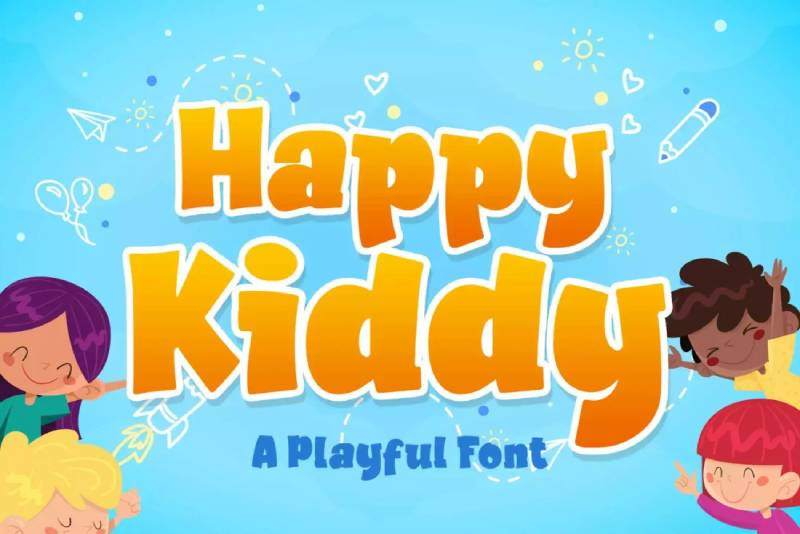
A playful sans-serif font that captures childhood energy with bold, wavy letterforms. Works beautifully for birthday invitations, party banners, and cake toppers.
Font Characteristics
- Style category: Sans-serif / Decorative
- Weight options: Bold only
- Character set: Full Latin A-Z uppercase and lowercase, numbers, punctuation, multilingual accents
Best Use Cases
- Birthday party invitations and banners
- Kids’ book covers and posters
- T-shirt designs and craft projects
- Best for children ages 1-10
- Casual, playful formality
Pairing Suggestions
- Body text: Pair with a clean sans-serif like Open Sans or Montserrat
- Design elements: Balloons, confetti, colorful geometric shapes
Visual Impact
- Readability: Best at medium to large sizes (headlines, titles)
- Color compatibility: Works with bright, vibrant color palettes and multi-color treatments
Hello Jerry
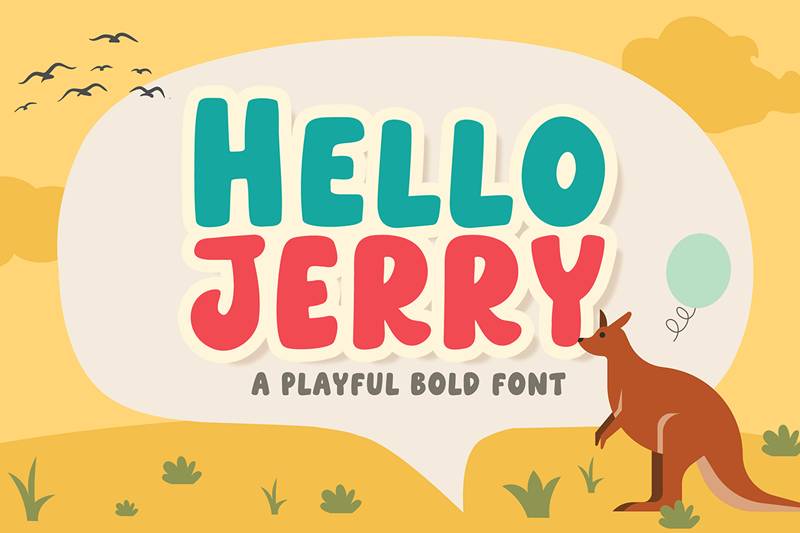
A bold display font with cheerful, all-caps styling. The thick letterforms grab attention instantly, making it a solid pick for birthday cards and party materials.
Font Characteristics
- Style category: Display / Cartoon
- Weight options: Bold (single weight)
- Character set: Uppercase, lowercase, numerals, punctuation (123 glyphs)
Best Use Cases
- Birthday invitations and greeting cards
- Logos and quote graphics
- Posters, packaging, book covers
- Suitable for all ages
- Casual to moderately playful formality
Pairing Suggestions
- Body text: Try Lato or Nunito for readable contrast
- Design elements: Confetti patterns, balloons, bold geometric accents
- Format: TTF (2 font files included)
- Download: DaFont, Font Bundles, CDN Fonts
Visual Impact
- Readability: Strong at large sizes; visual hierarchy works well for headlines
- Color compatibility: Pairs nicely with bright primary colors
Miggoe
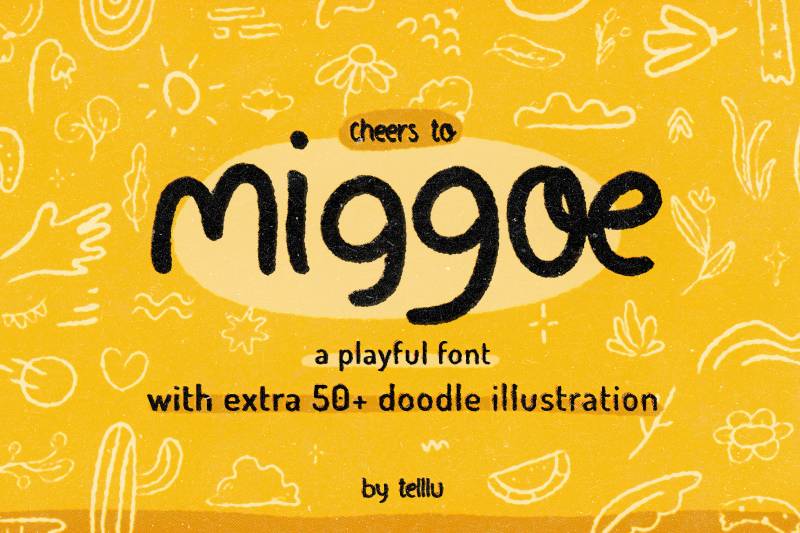
This cheerful handwritten-style font comes bundled with extra doodles. Perfect for educational materials and kids’ birthday designs. The included vector doodles (balloons, cakes, stars) make party graphics a breeze.
Font Characteristics
- Style category: Handwritten / Sans-serif hybrid
- Weight options: Regular only
- Character set: 216 glyphs, ligatures, multi-language support (English, French, Italian, Dutch, Spanish, Swedish, and more)
Best Use Cases
- Children’s birthday invitations
- Educational materials and school projects
- Greeting cards with doodle accents
- Ages 1-12 primarily
- Playful, informal formality
Pairing Suggestions
- Body text: Combine with simple sans-serifs like Roboto or Source Sans Pro
- Design elements: Use the included doodle set; florals and hand-drawn icons work great
Technical Details
- License: Premium (Envato Elements, Creative Market)
- Format: OTF, TTF plus bonus AI, EPS, SVG vector files
- Download: Envato Elements, Font Bundles, MasterBundles
Visual Impact
- Readability: Good at medium to large sizes
- Color compatibility: Bright pastels, rainbow schemes, and analogous colors look fantastic
Happy Day
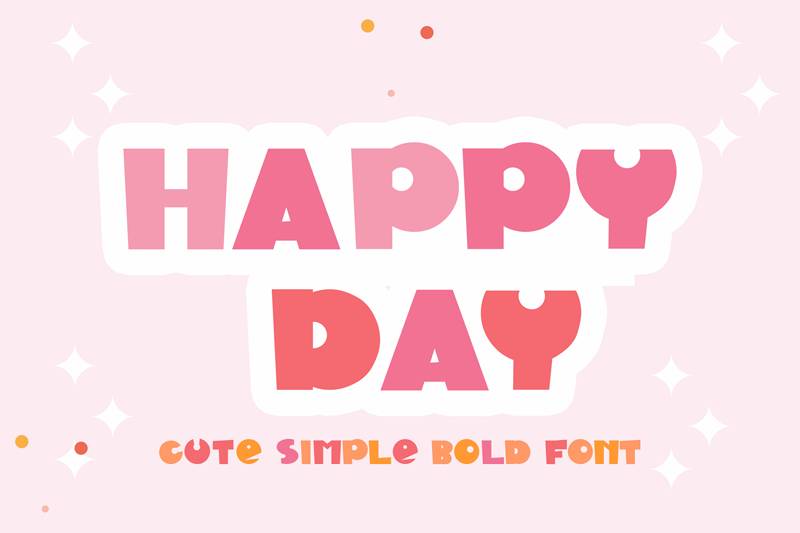
A paper cutout-style font that looks like someone actually cut each letter from colored paper. The uneven edges and playful irregularity give it an authentic handmade feel. Kids love it.
Font Characteristics
- Style category: Decorative / Display (cutout style)
- Weight options: Regular only
- Character set: Basic Latin A-Z uppercase and lowercase, numbers, punctuation
Best Use Cases
- Birthday signs and banners
- Children’s book designs
- YouTube thumbnails and social media covers
- Party invitations
- Ages 1-10; very casual formality
Pairing Suggestions
- Body text: Clean sans-serif fonts like Arial or Helvetica
- Design elements: Multi-colored backgrounds, paper texture overlays, craft-style graphics
Technical Details
- License: Premium (Envato Elements)
- Format: OTF, TTF, WOFF (web font included)
- Download: Envato Elements, Fontesk
Visual Impact
- Readability: Best at larger sizes where the cutout details show
- Color compatibility: Looks stunning with multi-color letter fills; try different hues per letter
Puzzle
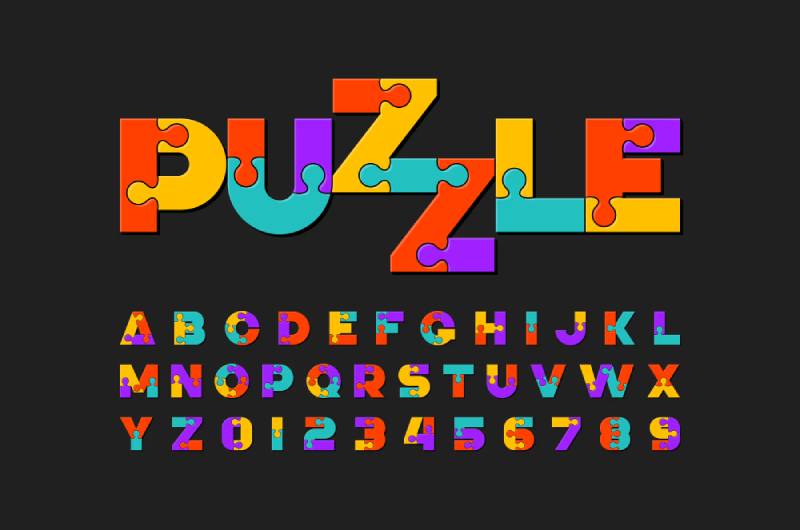
Bold jigsaw-inspired letterforms that literally look like puzzle pieces fit together. A fun choice for kid-friendly birthday parties and themed events. I actually used this for my nephew’s 5th birthday invites last year.
Font Characteristics
- Style category: Decorative / Display
- Weight options: Bold only
- Character set: Basic Latin A-Z, numbers, punctuation
Best Use Cases
- Kids’ birthday party invitations
- Game-themed events
- Children’s posters and banners
- Age group: 3-10 years
- Casual, fun formality
Pairing Suggestions
- Body text: Simple rounded fonts like Quicksand or Varela Round
- Design elements: Colorful puzzle pieces, game board motifs, playful icons
Technical Details
- License: Premium (Envato Elements)
- Format: OTF, TTF, WOFF
- Download: Envato Elements
Visual Impact
- Readability: Medium to large sizes only; details get lost small
- Color compatibility: Primary colors, rainbow schemes
Hellowkids
An adorable children’s typeface with rounded, comic-style letters. Comes with a bonus exclusive alphabet for extra design variety. The playful curves make every birthday message feel like a celebration.
Font Characteristics
- Style category: Sans-serif / Comic display
- Weight options: Bold
- Character set: Basic Latin A-Z, numbers, punctuation, bonus alphabet (English only)
Best Use Cases
- Birthday cards and invitations for kids
- Comic-style party materials
- Game interfaces and children’s content
- Ages 3-12
- Playful, informal formality
Pairing Suggestions
- Body text: Pair with Nunito or Poppins for clean readability
- Design elements: Planets, stars, cartoon characters, bold shapes
Technical Details
- License: Premium (Envato Elements)
- Format: OTF, WOFF
- Download: Envato Elements
Visual Impact
- Readability: Excellent at display sizes
- Color compatibility: Bright, saturated colors; works well with gradient fills
Handy Craft
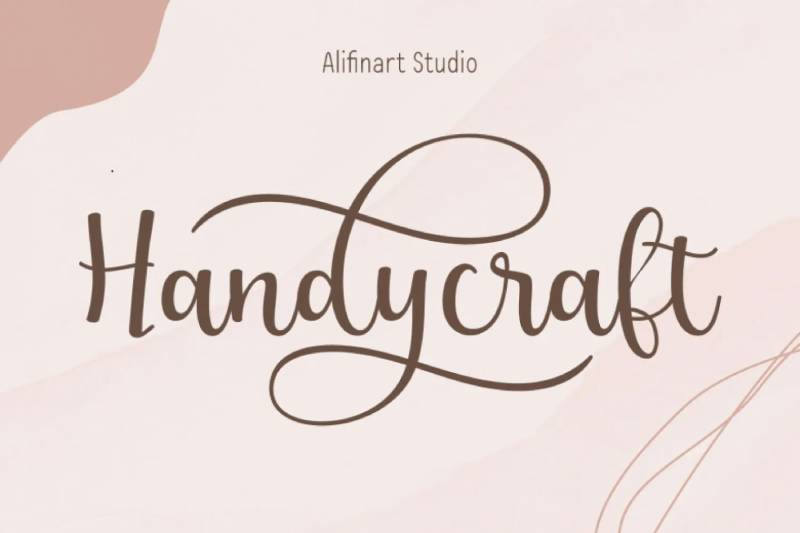
Chunky, handwritten letters with a cartoon aesthetic. The bold strokes demand attention, which makes it ideal for birthday party banners and large signage. Mix uppercase and lowercase for interesting compositions.
Font Characteristics
- Style category: Handwritten / Display
- Weight options: Bold only
- Character set: Uppercase and lowercase Latin, numbers, punctuation
Best Use Cases
- Birthday party invitations and banners
- Cartoon and animal-themed designs
- Food packaging and adventure graphics
- All ages (especially kids)
- Casual, whimsical formality
Pairing Suggestions
- Body text: Try Lora or Merriweather for contrast
- Design elements: Hand-drawn illustrations, animals, food icons
Technical Details
- License: Premium (Envato Elements)
- Format: OTF
- Download: Envato Elements, Design Shack
Visual Impact
- Readability: Great at large sizes for titles and headers
- Color compatibility: Bold, saturated colors; primary color schemes work particularly well
Honey Beezy
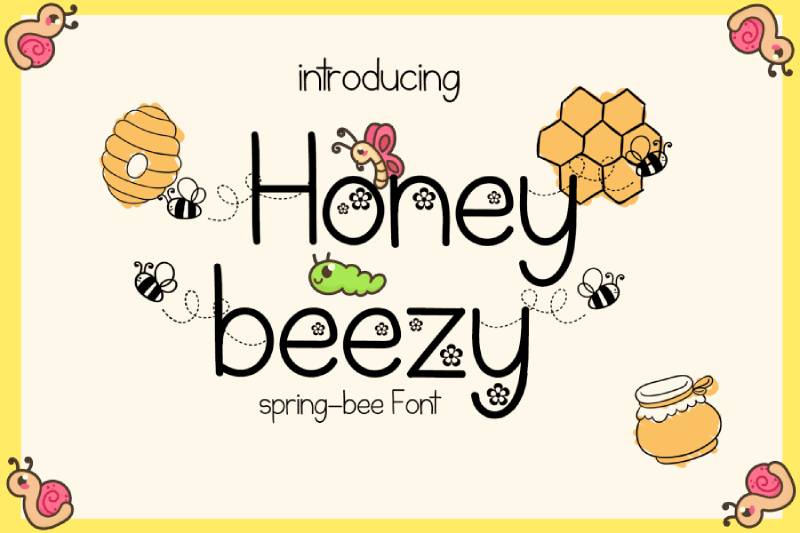
A sweet, monoline script font with a spring and bee theme. The thin, clean lines feel delicate yet readable. Some alternated glyphs add variety to your designs. Perfect for spring birthdays or nature-themed parties.
Font Characteristics
- Style category: Script / Handwritten
- Weight options: Regular (thin monoline)
- Character set: Full Latin alphabet, numbers, punctuation, alternate glyphs
Best Use Cases
- Spring-themed birthday parties
- Garden party invitations
- Children’s greeting cards and scrapbooks
- Social media posts and flyers
- Ages 1-8; sweet, cheerful formality
Pairing Suggestions
- Body text: Light sans-serifs like Raleway or Work Sans
- Design elements: Bees, flowers, honeycomb patterns, nature illustrations
Technical Details
- License: Free for personal use (DM Studio); commercial license available
- Format: OTF, TTF
- Download: 1001 Fonts, FontGet, Envato Elements
Visual Impact
- Readability: Works at medium sizes; thin strokes may struggle at very small sizes
- Color compatibility: Soft yellows, pastels, spring color palettes
Allea Sweet
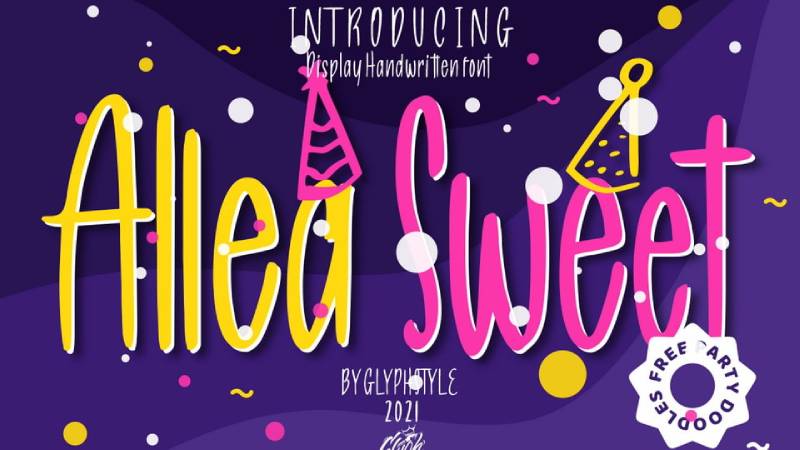
This handwritten display font brings cheerful energy to birthday cards and party invitations. Created by Glyphstyle, it looks like someone actually wrote it with a marker. Comes with bonus doodle party elements too.
Font Characteristics
- Style category: Handwritten script
- Weight options: Regular only
- Character set: Latin extended with 66+ glyphs, PUA encoded special characters
Best Use Cases
- Birthday cards, cake toppers, party banners
- Works great for children’s celebrations (ages 1-12)
- Casual and playful formality level
Pairing Suggestions
- Body text fonts: Clean sans-serifs like Open Sans or Montserrat
- Design elements: Pairs well with balloons, confetti graphics, hand-drawn doodles
Technical Details
- License type: Free for personal use; commercial license available from Glyphstyle
- Format compatibility: TTF, OTF (web and print)
- Download source: DaFont, Creative Fabrica, Fontesk
Visual Impact
- Readability: Best at medium to large sizes; headlines and titles work perfectly
- Color compatibility: Vibrant pastels or bold primary colors
Kinder Boys
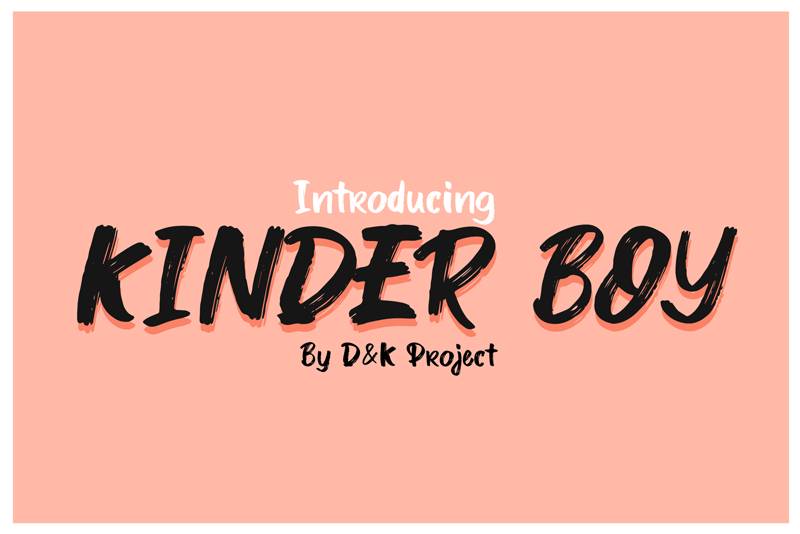
StringLabs created this one specifically for children’s designs. Thick, bold letterforms with a cartoon vibe. The dramatic weight makes headlines pop without trying too hard.
Font Characteristics
- Style category: Decorative display
- Weight options: Bold (single weight)
- Character set: Latin with multilingual support, uppercase and lowercase
Best Use Cases
- Birthday party invitations, kindergarten events, comic-style designs
- Perfect for kids aged 3-10
- Playful and informal tone
Pairing Suggestions
- Body text fonts: Simple rounded sans-serifs
- Design elements: Cartoon illustrations, speech bubbles, playful shapes
Technical Details
- License type: Free for personal use; commercial license required for business projects
- Format compatibility: TTF, OTF, WOFF (web and print)
- Download source: StringLabs Creative, Creative Fabrica, Envato Elements
Visual Impact
- Readability: Strong at larger sizes; not ideal for body text
- Color compatibility: Bold primaries, neon shades
Dragon Kids
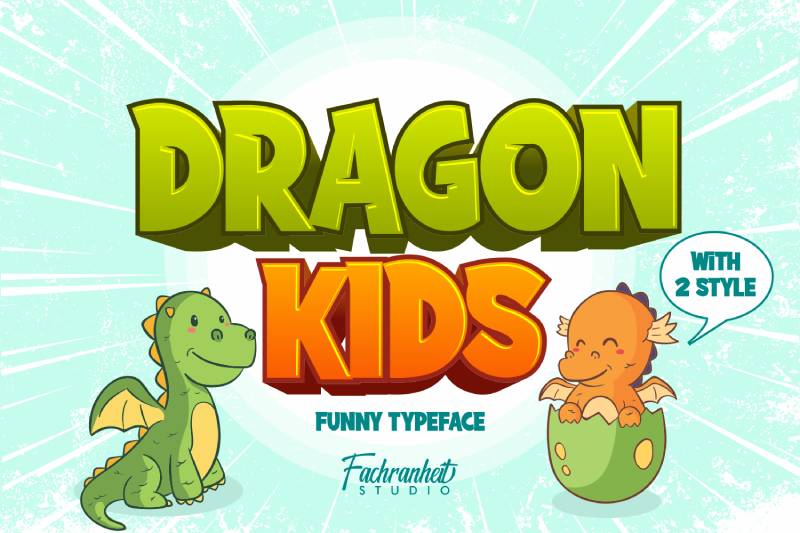
Bold and chunky. Fachranheit designed this typeface with undecorated lines and ribbon-like terminals. Took me a while to appreciate how versatile this actually is.
78 alternate characters give you options. The letter shapes feel handcrafted without looking sloppy.
Font Characteristics
- Style category: Bold display
- Weight options: Regular (bold appearance)
- Character set: Full Latin extended, 78 alternates, 12 swashes, PUA encoded
Best Use Cases
- Children’s book titles, party banners, t-shirt designs
- Best for ages 2-12
- Casual but polished look
Pairing Suggestions
- Body text fonts: Light to regular weight geometric sans-serifs
- Design elements: Dragons (obviously), fantasy themes, adventure graphics
Technical Details
- License type: Free demo for personal use; full commercial license from Fachranheit
- Format compatibility: TTF, OTF, WOFF, WOFF2 (web and print)
- Download source: DaFont, Creative Fabrica, Font Bundles
Visual Impact
- Readability: Excellent at display sizes; maintains clarity even on busy backgrounds
- Color compatibility: Works with most color schemes
Shiny Kids
Another StringLabs creation. Round edges with quirky exclamation-mark decorations on the letter legs. That detail alone makes it stand out from similar kids’ fonts.
The whimsical curves give your birthday materials instant personality.
Font Characteristics
- Style category: Decorative display
- Weight options: Regular
- Character set: 177 characters, Latin extended, multilingual support
Best Use Cases
- Birthday invitations, party decorations, children’s media
- Ages 2-10
- Cheerful and festive formality
Pairing Suggestions
- Body text fonts: Neutral sans-serifs with good x-height
- Design elements: Stars, sparkles, party hats, celebration icons
Technical Details
- License type: Free personal use; commercial license through StringLabs
- Format compatibility: TTF, OTF (both platforms)
- Download source: 1001 Fonts, StringLabs Creative, Creative Fabrica
Visual Impact
- Readability: Medium to large sizes only
- Color compatibility: Bright, happy colors; pastels work well too
Barnie Kids
StringLabs designed this with birthday invitations specifically in mind. The lovely letter shapes have that approachable quality kids respond to.
Not overly decorated. Just friendly and readable.
Font Characteristics
- Style category: Display
- Weight options: Regular (bold appearance)
- Character set: Standard Latin, numbers, punctuation
Best Use Cases
- Birthday party invitations, celebration cards, school projects
- Great for ages 3-12
- Warm and inviting tone
Pairing Suggestions
- Body text fonts: Clean, rounded sans-serif fonts
- Design elements: Friendly characters, soft shapes, balloons
Technical Details
- License type: Free for personal use; commercial license available
- Format compatibility: TTF, OTF (web and print ready)
- Download source: DaFont, StringLabs Creative
Visual Impact
- Readability: Clear at headline sizes
- Color compatibility: Warm tones, soft palettes, bright accents
Audrey Kids
Fun and lively. StringLabs captured childhood energy with bold, rounded letters and a carefree style. The balanced thickness keeps things readable while the rounded edges soften the overall feel.
One-of-a-kind alternates give you flexibility.
Font Characteristics
- Style category: Playful display
- Weight options: Regular
- Character set: 168 characters, multilingual support
Best Use Cases
- Children’s books, birthday celebrations, classroom projects
- Suits ages 2-12
- Playful but legible formality
Pairing Suggestions
- Body text fonts: Simple geometric sans-serifs with good tracking
- Design elements: Books, stars, educational graphics, party supplies
Technical Details
- License type: Free for personal; commercial license from StringLabs or MyFonts
- Format compatibility: TTF, OTF, WOFF, WOFF2 (all platforms)
- Download source: 1001 Fonts, Creative Fabrica, Envato Elements
Visual Impact
- Readability: Performs well at various display sizes
- Color compatibility: Versatile across color schemes
Jangkids
Bouncy letters with slightly uneven lines. StringLabs went for carefree fun here, and it works. The visible, round counters make letters instantly recognizable.
That youthful energy comes through without sacrificing readability.
Font Characteristics
- Style category: Quirky display
- Weight options: Regular
- Character set: Extended Latin, full punctuation, numbers
Best Use Cases
- Birthday materials, party graphics, children’s branding
- Ages 3-12
- Joyful and lighthearted formality
Pairing Suggestions
- Body text fonts: Clean, modern sans-serifs
- Design elements: Confetti, circus themes, playful illustrations
Technical Details
- License type: Free for personal use; commercial license required
- Format compatibility: TTF, OTF, WOFF (web and print)
- Download source: Creative Fabrica, So Fontsy, Font Bundles
Visual Impact
- Readability: Best at medium to large sizes
- Color compatibility: Bold, cheerful colors work best
Amazing Kids
Comical letter shapes with narrow counters and steady boldness. StringLabs created something that grabs attention without being obnoxious. Two styles available (regular and outline) give you options.
The whimsical appearance stays professional enough for branded materials.
Font Characteristics
- Style category: Decorative display
- Weight options: Regular and Outline
- Character set: Full Latin, multilingual support
Best Use Cases
- School advertisements, birthday designs, children’s party branding
- Perfect for ages 2-12
- Fun yet versatile formality
Pairing Suggestions
- Body text fonts: Subtle, readable sans-serifs
- Design elements: Cartoon characters, celebration graphics, educational themes
Technical Details
- License type: Free personal use; commercial from StringLabs Creative
- Format compatibility: TTF, OTF, WOFF, WOFF2 (both web and print)
- Download source: StringLabs Creative, Creative Fabrica, Envato Elements
Visual Impact
- Readability: Excellent for headlines and titles
- Color compatibility: Works across vibrant and muted palettes
Funcy Kids
A cute and quirky display font that brings instant joy to children’s birthday projects. Created by Stringlabs Creative Studio, this playful typeface works beautifully for party invitations and celebration designs.
Font Characteristics
- Style category: Decorative display
- Weight options: Regular only
- Character set: Latin with standard punctuation
The letterforms feel bouncy and energetic. Each character has rounded edges that soften the overall look.
Best Use Cases
Works perfectly for:
- Kids’ birthday party invitations
- Celebration banners and posters
- Cake topper designs
- Party favor labels
Best suited for children ages 2 to 10. The formality level sits firmly in the playful, casual zone.
Pairing Suggestions
Body text companions:
- Open Sans for readable paragraphs
- Lato for a clean secondary option
Design elements: Pairs well with balloons, confetti patterns, and cartoon illustrations. Avoid pairing with formal geometric shapes.
Technical Details
| Aspect | Details |
|---|---|
| License type | Premium (personal demo available) |
| Format | OTF, TTF |
| Source | MyFonts, Envato Elements |
Visual Impact
Readable at medium to large sizes. Not ideal for small text applications.
Works best with bright, saturated colors. Think primary hues and pastels. Avoid using on busy backgrounds where the playful details might get lost.
Happy Unicorn
A fun modern display font with two style variations. Perfect for greeting cards, birthday poster designs, and branding projects that need a touch of magic.
Font Characteristics
- Style category: Decorative display
- Weight options: Regular and Bold
- Character set: Full Latin alphabet with numerals
The design feels contemporary yet whimsical. Something about it just screams celebration without being over the top.
Best Use Cases
Ideal for:
- Birthday card headlines
- Party invitation titles
- Social media birthday posts
- Product packaging for kids’ items
Suits all ages when used creatively. I’ve seen it work for everything from toddler parties to sweet sixteen celebrations. Formality level: casual to semi-formal.
Pairing Suggestions
Body text options:
- Montserrat for modern balance
- Source Sans Pro for web projects
Design elements: Unicorns (obviously), rainbows, stars, and florals. The font psychology here leans playful and dreamy.
Technical Details
| Aspect | Details |
|---|---|
| License type | Premium with commercial options |
| Format | OTF, TTF |
| Source | Creative Fabrica, Font Bundles |
Visual Impact
Strong readability at display sizes. The bold weight really pops on birthday banners.
Color-wise, this font loves pinks, purples, and soft pastels. Works with gradient backgrounds too.
Birthday Wishlist Signature
A modern script font with simple elegance. The signature style adds a personal touch to birthday invitations and greeting cards without looking overly formal.
Font Characteristics
- Style category: Script/Signature
- Weight options: Regular
- Character set: Full Latin with OpenType features including stylistic sets 01-03, ligatures, and PUA encoding
The letters flow naturally. Not too swoopy, not too rigid. Took me a while to find something that hit this balance.
Best Use Cases
Perfect applications include:
- Elegant birthday invitations
- Quote designs and wall art
- Logo and branding for event planners
- Business cards and stationery
Best for teen and adult celebrations. The formality level ranges from casual elegance to semi-formal.
Pairing Suggestions
Complementary body fonts:
- Playfair Display for elegant pairings
- Raleway for contemporary contrast
Design elements: Works beautifully with minimalist florals, watercolor textures, and gold foil accents. Avoid heavy decorative elements that compete with the script’s natural flow.
Technical Details
| Aspect | Details |
|---|---|
| License type | Free personal / Premium commercial |
| Format | OTF, TTF |
| Source | Envato Elements, Font Bundles, DaFont |
Software compatibility includes Adobe Illustrator, InDesign, CorelDraw X6+, and Silhouette (via PUA encoding).
Visual Impact
Best at medium to large sizes. Small text loses the signature character.
The font works with virtually any color palette. Gold and black combinations look particularly striking. Soft backgrounds with good contrast really let this one shine.
Glitter
A modern calligraphy script font by Debut Studio. Four style variations (Regular, Shiny, Shadow, Rough) make this incredibly versatile for celebration designs.
Font Characteristics
- Style category: Script/Calligraphy
- Weight options: Regular with layered variations
- Character set: Full Latin, numerals, OpenType features, ligatures
Here’s what makes this one special. Three of the four files work as layers, letting you create shiny and shadow effects without additional software. That’s a time-saver.
Best Use Cases
Strong choices:
- Birthday greeting cards
- Wedding and celebration invitations
- New Year and graduation designs
- Social media celebration posts
Works across all age groups depending on style variation chosen. Formality spans from festive casual to elegant formal.
Pairing Suggestions
Body text partners:
- Lora for elegant serif pairing
- Nunito for friendly sans-serif balance
Design elements: Sparkles, confetti, and metallic textures complement this font naturally. The layered capability means you can create impressive typography effects with minimal effort.
Technical Details
| Aspect | Details |
|---|---|
| License type | Free demo / Premium full version |
| Format | OTF, TTF |
| Source | Creative Market, Font Bundles, Befonts |
The layered file system is this font’s hidden feature. Most designers miss it.
Visual Impact
Excellent readability at headline sizes. The shiny variation really catches the eye in print design applications.
Gold, silver, and rose gold color treatments work beautifully. Actually, any metallic or sparkle effect pairs well with the font’s inherent personality.
Equinox
A modern, minimal display typeface by Tugcu Design Co. Clean lines and geometric letterforms make this surprisingly versatile for both sci-fi themes and contemporary birthday designs.
Font Characteristics
- Style category: Sans-serif display
- Weight options: Regular and Bold
- Character set: Uppercase multilingual letters, numerals, punctuation, alternate characters
Toggle caps lock for alternate letterforms. That’s a nice touch for creating variety within a single design.
Best Use Cases
Strong applications:
- Space or sci-fi themed birthday parties
- Modern milestone birthday invitations (30th, 40th, 50th)
- Birthday YouTube video thumbnails
- Contemporary greeting card headlines
Best for pre-teen to adult celebrations. Formality level: modern casual to sleek formal.
Pairing Suggestions
Body text companions:
- Roboto for web-friendly combinations
- Inter for clean, modern hierarchy
Design elements: Geometric shapes, cosmic imagery, and clean layouts. The minimalist design aesthetic suits brands wanting sophisticated celebration materials.
Technical Details
| Aspect | Details |
|---|---|
| License type | Free personal / Premium commercial |
| Format | OTF, TTF, WOFF |
| Source | Envato Elements, DaFont, Befonts |
Visual Impact
Excellent readability at any size. The geometric structure maintains clarity even in small applications.
Works with virtually any color scheme. The clean lines mean you can go bold or subtle. Dark themes with bright accent colors look particularly sharp. Good visual hierarchy comes naturally with this one.
Anders
An experimental geometric sans-serif font by Tom Anders Watkins. Minimal and unique, this font brings a distinctive edge to contemporary birthday projects.
Font Characteristics
- Style category: Geometric sans-serif
- Weight options: Regular only
- Character set: Uppercase only (all caps)
The designer created this as a thank-you to the design community. Using influences from modern font design, the result feels both familiar and fresh.
Best Use Cases
Works well for:
- Modern birthday stationery
- Greeting card headlines
- Birthday social media graphics
- Event branding and signage
Best suited for teen through adult celebrations. Formality: modern casual to sophisticated.
Pairing Suggestions
Body text options:
- Work Sans for friendly contrast
- PT Sans for balanced layouts
Design elements: Geometric patterns, clean photography, and white space heavy layouts. Pairing fonts with Anders requires something warm to offset its angular personality.
Technical Details
| Aspect | Details |
|---|---|
| License type | Free for personal and commercial use |
| Format | OTF, TTF |
| Source | Behance, Fontesk, Creative Fabrica |
This is one of those rare truly free fonts. The designer explicitly allows commercial use.
Visual Impact
Strong readability at display sizes. The uppercase-only design creates instant impact.
Works with any color combination. The angular letterforms actually pop more with bold color choices. Consider high-contrast pairings for maximum effect. Typography elements like tracking can be loosened slightly for airier layouts.
FAQ on The Best Happy Birthday Fonts
What makes a good birthday font?
A good birthday font balances readability with personality. Look for playful typography that fits your celebration theme. Script fonts work for elegant parties. Bold display fonts suit kids’ events. The vibe matters more than trends.
Are free birthday fonts safe to download?
Most free fonts from trusted sites like Google Fonts, Font Squirrel, and Dafont are safe. Always check the font licensing terms before commercial use. Some “free” fonts only cover personal projects.
Which fonts work best for birthday invitations?
Dancing Script and Pacifico are popular picks. Great Vibes adds elegance. For kids’ parties, try bubble letter fonts or playful display fonts. Your invitation style should match the party atmosphere.
Can I use birthday fonts in Cricut Design Space?
Yes. Download fonts in OTF or TTF format, then install them on your computer. Cricut Design Space automatically detects installed fonts. Works great for vinyl banners and cake toppers.
What’s the difference between script and display birthday fonts?
Script fonts mimic handwriting with flowing, connected letters. Display fonts are decorative and attention-grabbing. Scripts feel personal and elegant. Display fonts feel bold and festive. Many designers combine both.
How do I pair birthday fonts without clashing?
Stick to two fonts maximum. Pair a decorative headline font with a simple body typeface. Contrast matters. Learn more about pairing fonts effectively. Avoid combining two busy fonts together.
Which birthday fonts work for adults versus kids?
Adults prefer elegant scripts like Great Vibes or clean sans-serif fonts. Kids’ parties call for whimsical lettering, balloon fonts, or colorful bubble letters. Age shapes everything here.
What font size should I use for birthday banners?
Depends on viewing distance. For party banners, start at 150pt minimum. Test printouts first. Consider the font spacing between letters. Tight spacing gets hard to read from across the room.
Are variable fonts good for birthday designs?
Variable fonts offer flexibility. One file contains multiple weights and styles. Great if you need consistency across birthday cards, invitations, and banners. Not all design tools support them yet though.
Where can I find premium birthday fonts?
Creative Market, MyFonts, and Envato Elements offer quality options. Premium fonts typically include more glyphs and alternate characters. Worth the investment for professional party design work.
Conclusion
Choosing the best happy birthday fonts comes down to knowing your audience and medium. A handwritten birthday font works beautifully on greeting cards. Bold, festive text styles grab attention on party banners.
Don’t overthink it.
Pick one decorative font for headlines. Add a clean secondary option for details. That’s usually enough.
Sites like Adobe Fonts, Fontspace, and 1001 Fonts give you plenty of free and premium choices. Whether you’re working in Photoshop, Illustrator, or Microsoft Word, the right birthday typeface makes your design feel intentional.
Test before you print. Check kerning on longer messages. And remember that readability beats fancy every single time.
Now go make something worth celebrating.